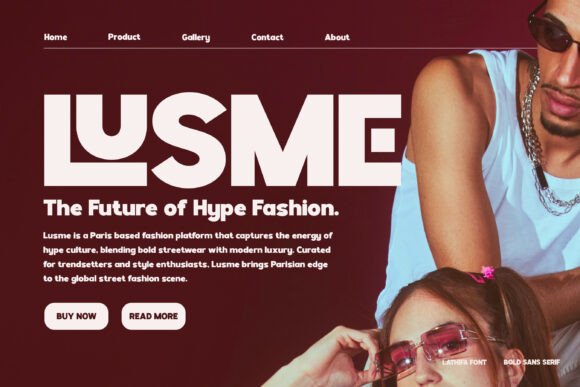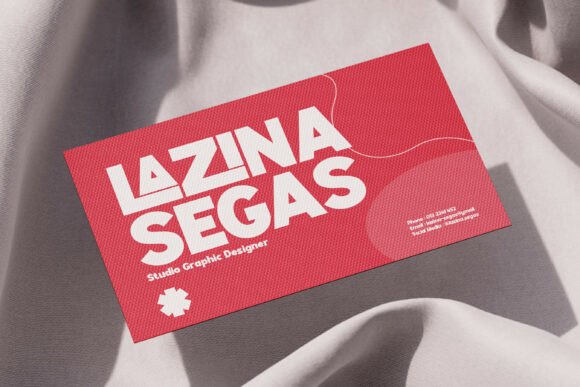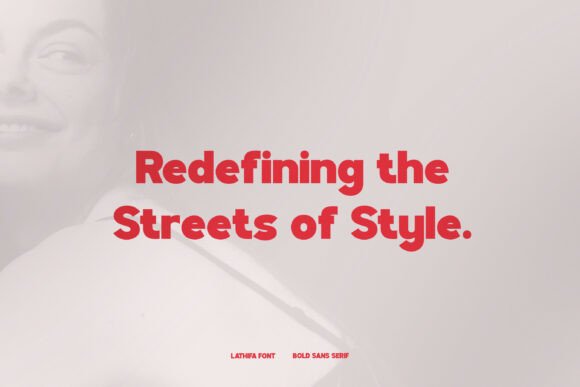
Introduction to Lathifa Font
Have you ever stared at a blank canvas, waiting for the perfect font to spark your creative project? For designers, this moment is all too familiar. The search for the perfect typography can be overwhelming, but what if you stumbled upon a font that could elevate your entire design? Meet the Lathifa Font, a modern bold sans serif font that’s about to revolutionize your creative workflow.
As a valuable resource for designers, the Lathifa Font offers a unique combination of style and versatility. Its geometric touch and striking alternates make it perfect for logos, branding, posters, packaging, and editorial designs. Whether you’re crafting bold headlines or stylish layouts, the Lathifa Font delivers a modern and impactful statement every time. And the best part? It’s available for free download with a transparent background, making it a high-quality addition to any design project.
Key Features of Lathifa Font
- High-quality design resource perfect for creative projects, offering a unique and elegant aesthetic.
- Unique characteristics include intricate details and subtle textures, adding depth and visual interest to designs.
Honest Review: Lathifa Font
I recently had the chance to work with the Lathifa Font, and I must say it’s a great addition to any designer’s toolkit. This free download is perfect for designers looking to add a touch of elegance to their creative projects.
- ✨ High-quality design: The Lathifa Font features beautiful, intricate details that are sure to impress.
- ✨ Versatile: This font is suitable for a wide range of designs, from corporate logos to wedding invitations.
However, I did encounter a few limitations when using the Lathifa Font.
- ⚠️ Limited character set: The font only includes a limited number of characters, which may be a concern for designers working on longer texts.
Overall, I’m quite impressed with the Lathifa Font. While it may have some limitations, its high quality and versatility make it a valuable resource for designers. With a bit of creativity, it can be used to create stunning designs that really stand out.
The Lathifa Font is ideal for various creative projects, including graphic design, digital art, and branding materials. Its high-quality design and transparent background make it a versatile resource for designers and artists.